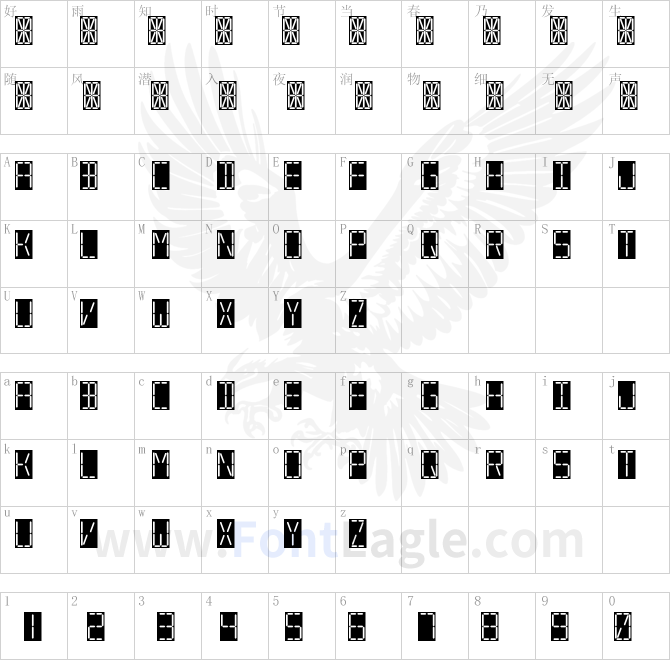
7-SEGMENTAL-DIGITAL-DISPLAY is a great font, widely used in graphic design, single-page menu design, poster design and other fields, and is deeply loved by designers.7-SEGMENTAL-DIGITAL-DISPLAY download.